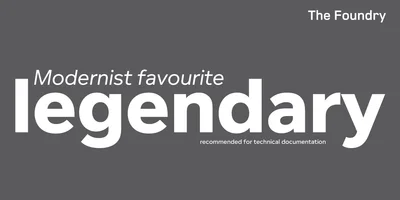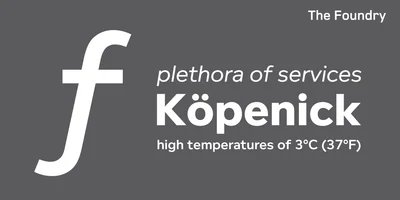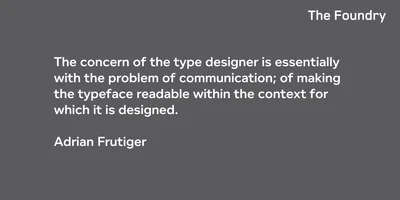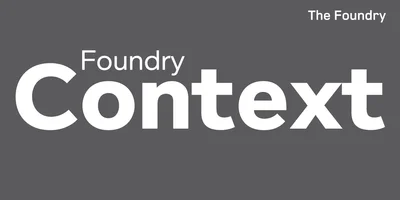
About Foundry Context
- Foundry
- The Foundry
- Classification
- sans-serif
- Style
- humanist
Foundry Context is a humanist sans-serif typeface designed by Freda Sack, David Quay, and Stuart De Rozario for The Foundry. The design reflects the foundry's systematic approach to type families, prioritizing extended text readability and professional utility over stylistic display.
History and Design
The Foundry was established in London around 1989 by Freda Sack and David Quay, becoming one of the first independent digital type foundries in the United Kingdom. Foundry Context emerged from the studio's focus on building complete, functional typeface systems — families designed to handle the full range of typographic tasks from body text through headlines within a single coherent voice.
Context draws on 19th-century sans-serif traditions while applying modern optical refinements. The letterforms are described as "no-nonsense" — round, pure shapes with minimal stroke contrast and carefully controlled spacing. Rather than pursuing geometric perfection or grotesque neutrality, Context occupies the humanist middle ground: letterforms that feel natural to read in long passages while maintaining enough structure for professional credibility in corporate and institutional settings.
Technical Characteristics
- Humanist proportions: Letter widths based on natural reading rhythms rather than geometric uniformity
- Minimal stroke contrast: Even weight distribution for stable rendering across sizes and media
- Round, open letterforms: Clear character differentiation for body text legibility
- Systematic family structure: Weights and styles designed as a coordinated typographic system
- Text optimization: Spacing and proportions calibrated for extended reading comfort
Use Cases
Foundry Context works effectively for:
- Editorial and publishing: Humanist proportions and text optimization suit books, magazines, and newspapers
- Corporate communications: Trustworthy, professional tone for annual reports, presentations, and internal documents
- Government and institutional design: Clear, functional character appropriate for public-facing documents
- User interface design: Readable proportions translate well to screen environments
- Wayfinding and signage: Clean letterforms maintain legibility at distance and in motion
Who designed Foundry Context?
Foundry Context was designed by Freda Sack, David Quay, and Stuart De Rozario at The Foundry, a pioneering British type foundry established in London around 1989.
Is The Foundry still active?
The original Foundry became defunct, but it was revived in 2024 as The Foundry Types by David Quay and Stuart De Rozario, continuing the legacy of Freda Sack who passed away in 2019.